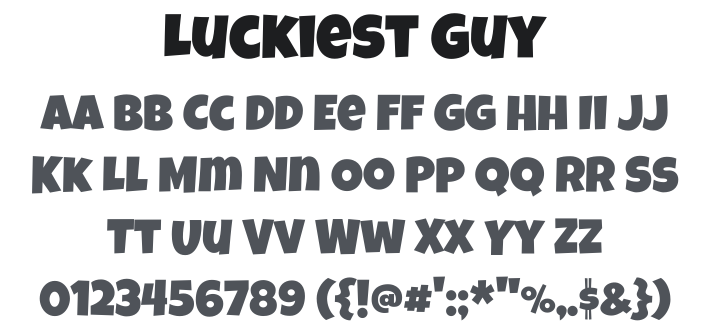
Luckiest Guy Font
About Luckiest Guy
Luckiest Guy is a friendly heavyweight sans serif typeface inspired by 1950s advertisements with custom hand lettering.